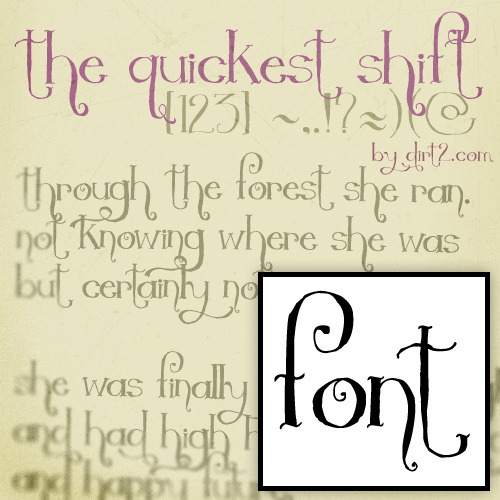
The Quickest Shift, created by Dirt2.com, is a free calligraphic display font with towering strokes and fine, looping flourishes. Strong changes in stroke width give the letters a graceful but slightly eccentric silhouette, and the long curves make the writing feel drawn rather than typeset.
Botanical illustration and fashion photography can echo its slender, curling lines, making it useful for perfume packaging, magazine covers, and invitations. Its clearest role is elegant title lettering, where the extended forms can become part of the decorative artwork.